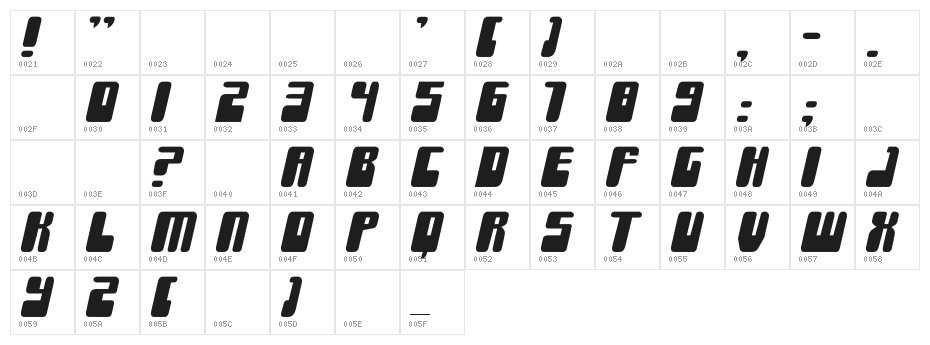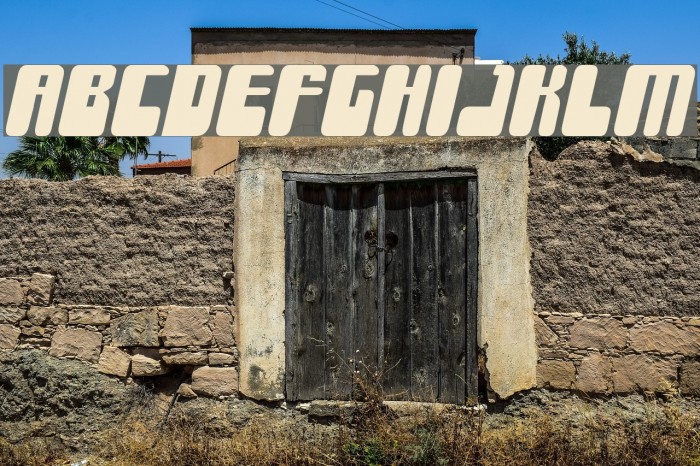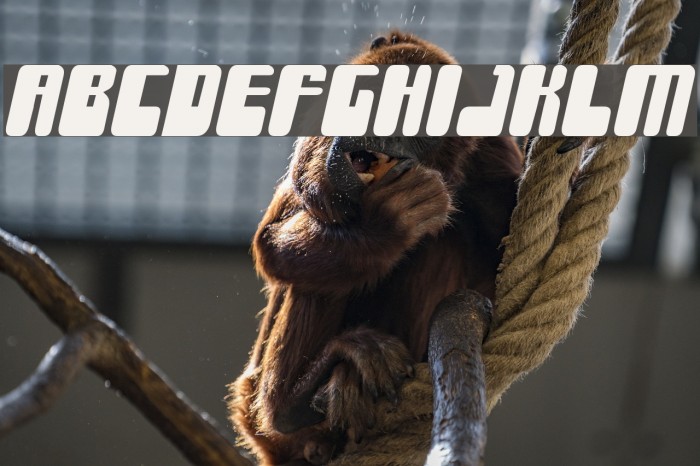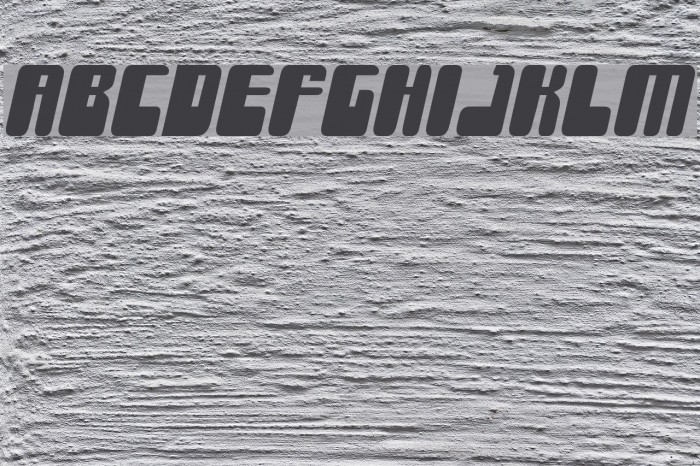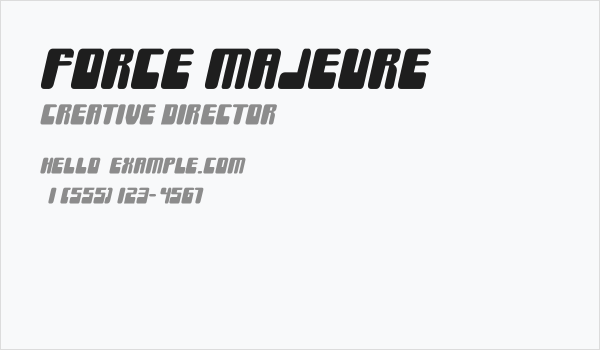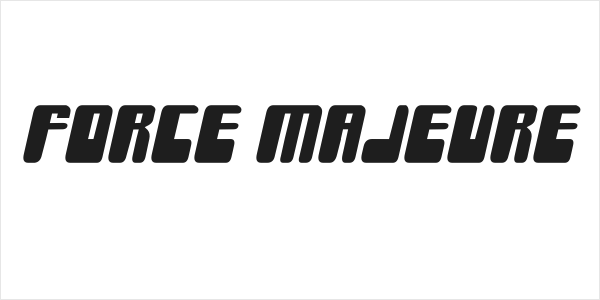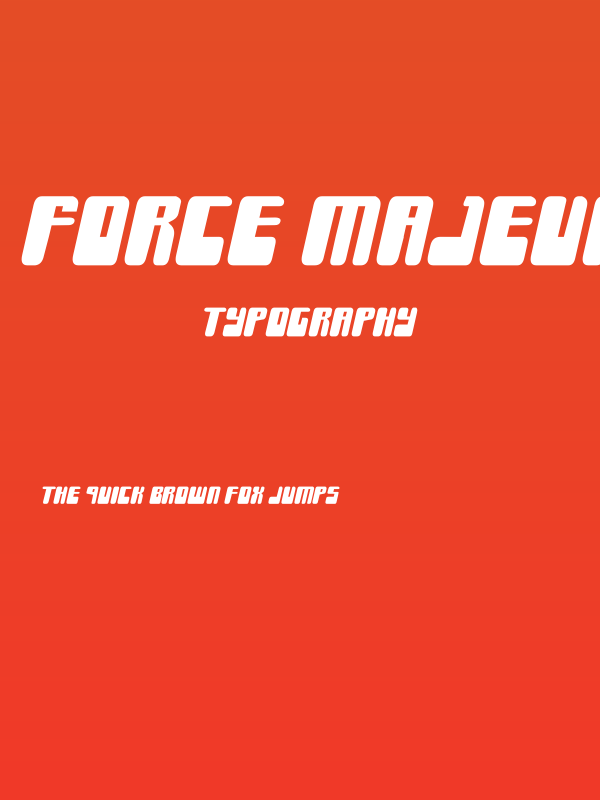
Force Majeure Font
Force Majeure Description
This font features bold, rounded characters with a modern and dynamic appearance. The letters are slightly condensed, giving a compact and powerful look. The strokes are thick and consistent, providing a strong visual impact. The overall style is sleek and contemporary, making it suitable for attention-grabbing designs. The numbers and special characters maintain the same boldness and rounded edges, ensuring uniformity across all elements. This font is ideal for projects that require a bold statement and a modern aesthetic.
| Proposed Projects | Ideal for sports branding, posters, headlines, and modern advertising campaigns. |